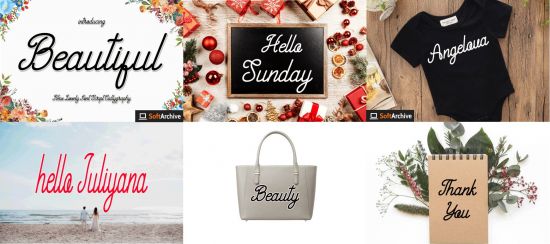
Beautiful feels equally charming and elegant. This stunning script font is a stylish homage to classic calligraphy. It features a varying baseline, smooth lines, gorgeous glyphs and stunning alternates. Fall in love with its authentic feel and use it to create gorgeous wedding invitations, beautiful stationary art, eye-catching social media posts, and cute greeting cards.